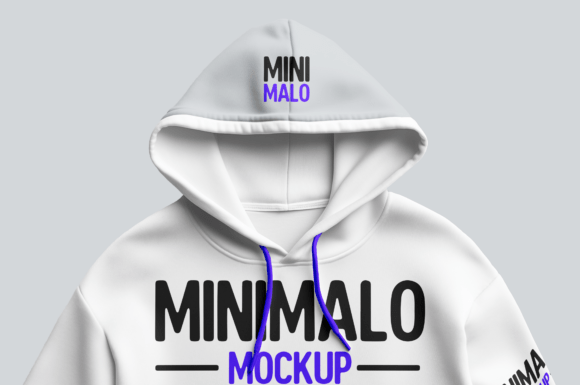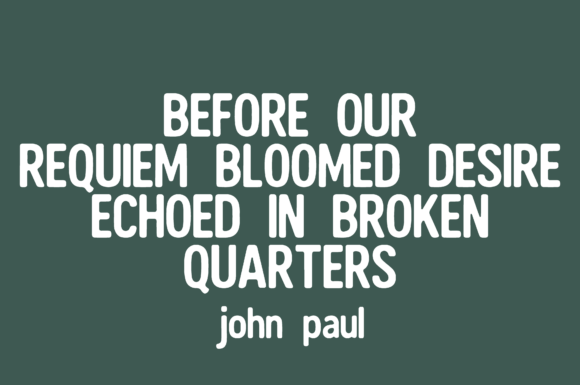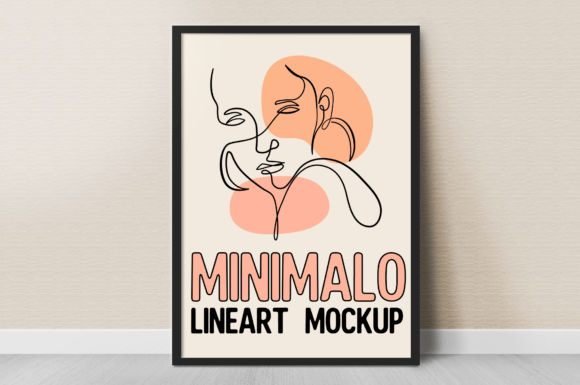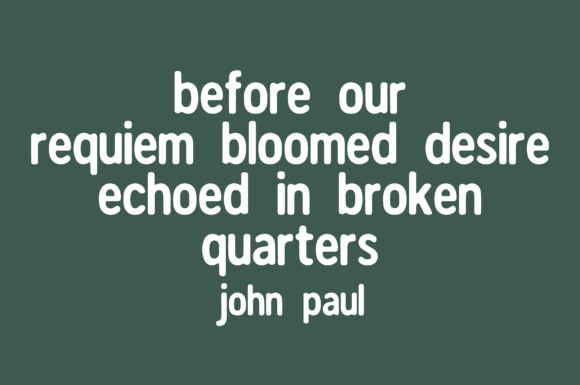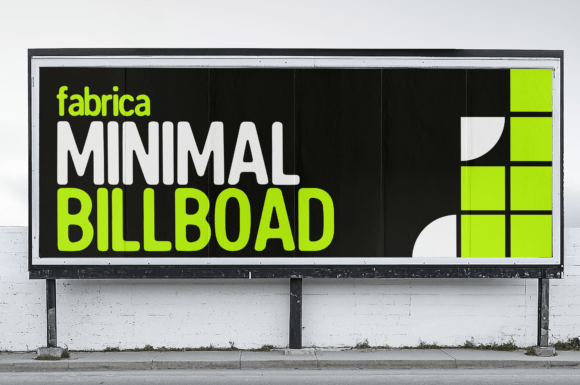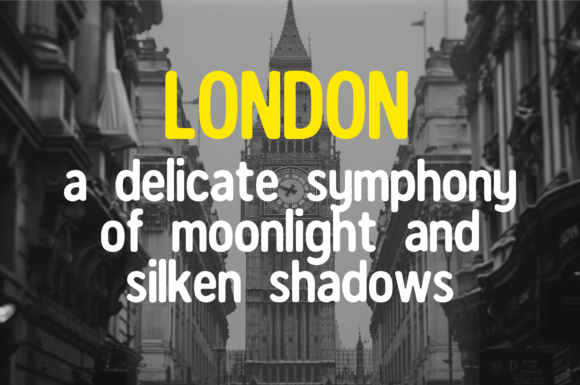
Introduction to Minimalo Font
Remember that moment when you’re stuck on a design project, staring at a blank canvas, and the words just won’t flow? You’re not alone. As a designer, we’ve all been there. But what if you had the perfect tool to break through the creative block and bring your vision to life? Enter Minimalo Font – a game-changing design resource engineered to make your life easier and your typography shine.
With its minimalist rounded condensed sans serif design, Minimalo Font brings a perfect blend of warmth and efficiency to your creative project. Whether you’re crafting bold headlines, sleek logos, or user interface elements, this versatile font is sure to elevate your work with its high-quality, space-saving letterforms and transparent background. And the best part? It’s free for subscribers, making it an essential addition to your design arsenal.
Key Features of Minimalo Font
- High-quality design resource for creative projects, perfect for minimalist designs
- Features a clean and simple design, ideal for logos, typography, and branding materials
- Unique characteristics include a modern aesthetic, geometric shapes, and a limited color palette
Honest Review: Minimalo Font
As a designer, I’m always on the lookout for high-quality design resources to elevate my creative projects. Recently, I had the chance to try out the Minimalo Font, and I’m excited to share my honest review with you.
- ✨ Clean and modern aesthetic: The Minimalo Font is designed to be simple and easy to read, making it perfect for a variety of creative projects.
- ✨ High-quality design: The font is well-crafted and visually appealing, with a transparent background that makes it easy to layer and combine with other design elements.
- ⚠️ Limited font styles: While the Minimalo Font is clean and modern, it’s limited in terms of font styles and variations.
- ⚠️ Not suitable for complex text: Due to its simple design, the Minimalo Font may not be the best choice for complex or multi-line text.
Overall, I was impressed with the Minimalo Font’s clean and modern aesthetic, high-quality design, and free download option. While it may have some limitations, it’s a great resource for designers working on creative projects that require a simple and easy-to-read font.
Using Minimalo Font in Creative Projects
With the Minimalo Font installed, you can use it in various creative projects. The font’s clean and modern design makes it perfect for digital projects such as social media graphics, website headers, and blog posts. You can also use it for print projects like business cards, brochures, and flyers.
Tips for Getting the Most Out of Minimalo Font
To get the most out of the Minimalo Font, use it in conjunction with a transparent background to create a modern and sleek look. You can also experiment with different font sizes and colors to add visual interest to your project.
Common Use Cases for Minimalo Font
The Minimalo Font is perfect for use in creative projects that require a clean and modern design. Some common use cases include:
- Website headers and footers
- Blog posts and articles
- Flyers and posters
The Minimalo Font is available for free download and is of high quality, making it a great addition to any design project. With its clean and modern design, the Minimalo Font is sure to elevate your creative project and make it stand out from the crowd.